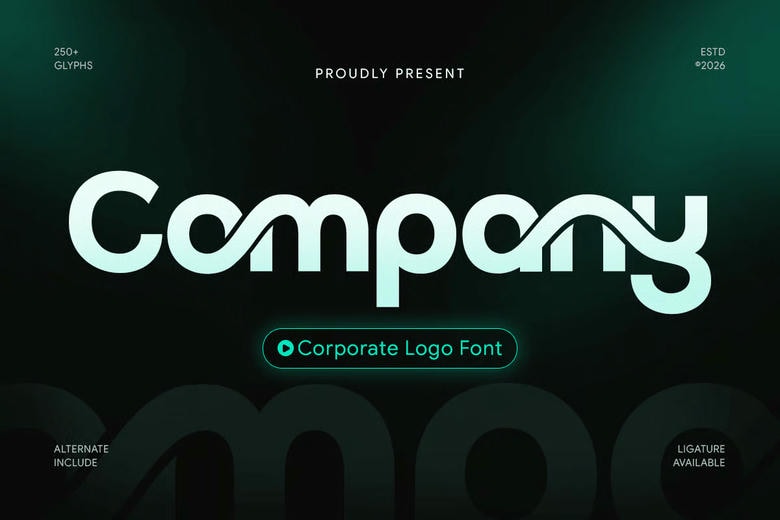
Company Font
Company Font is a professional corporate logo typeface made to help businesses build a clean, trustworthy, and modern identity. With its balanced letters, clear structure, and simple style, Company works well for logos, branding, presentations, marketing, and other design projects.
The company is designed to be clear and flexible, making it easy to read in both print and digital formats. Its modern look suits startups, agencies, finance and tech brands, and designers who want a dependable font for strong branding.
Company Logo Font